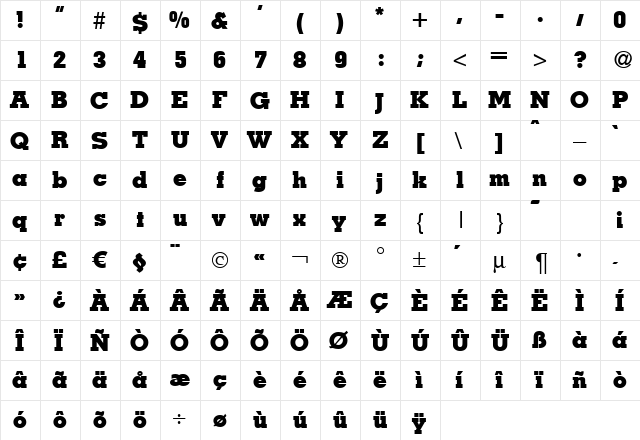
Mesa-Heavy Regular
Design Context for Mesa-Heavy Typeface
Mesa-Heavy is a composed and adaptable typeface that performs quietly and consistently across a wide range of design contexts.